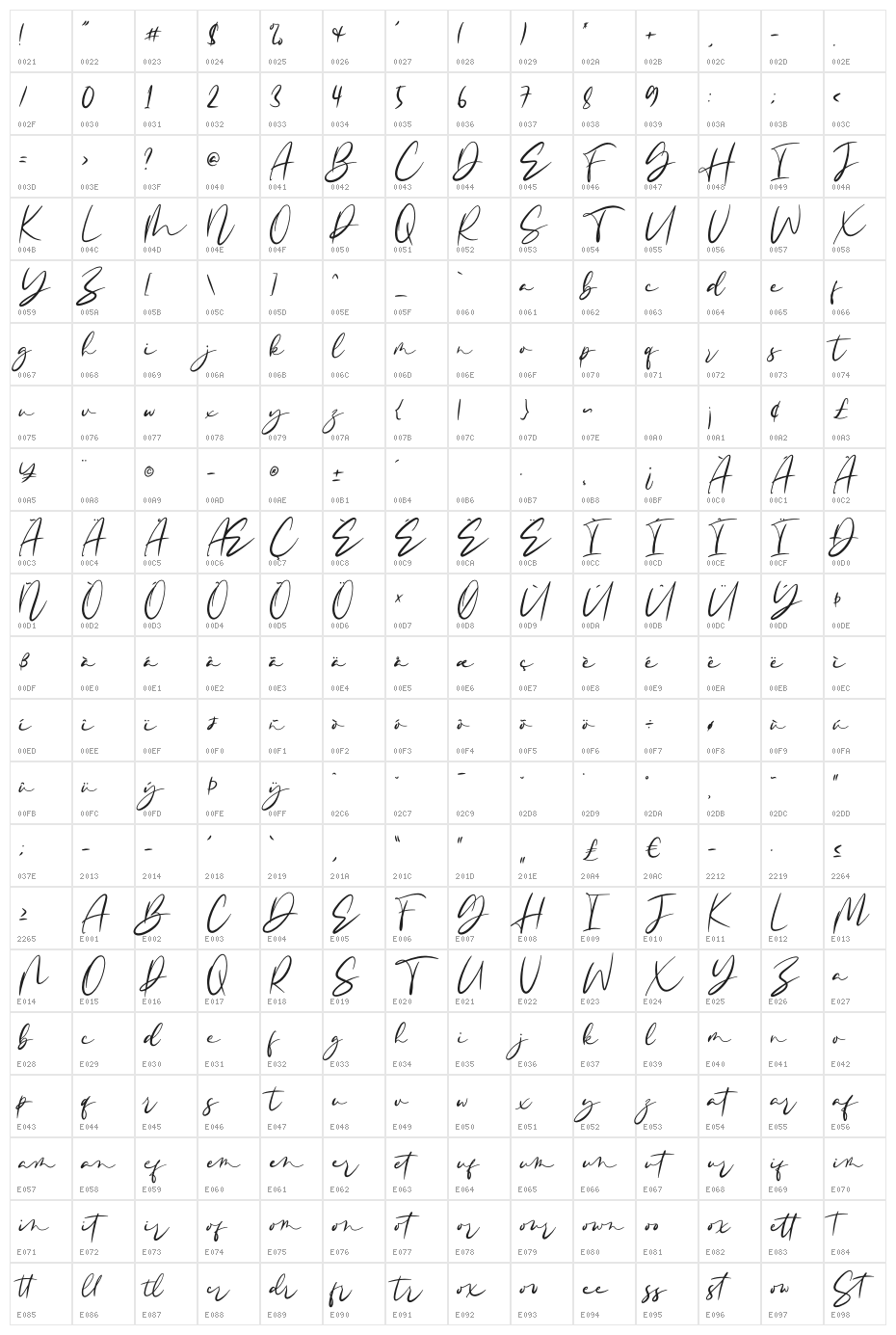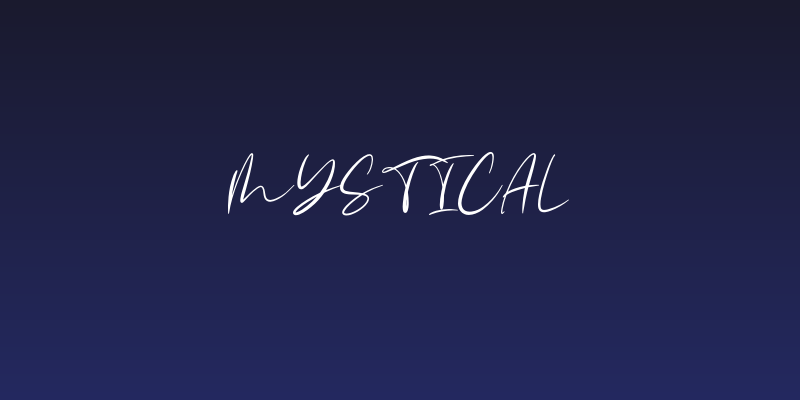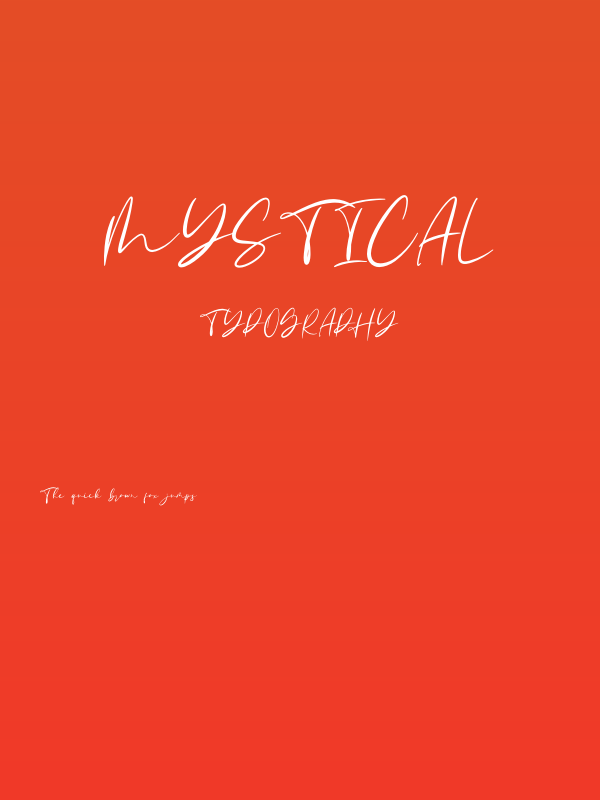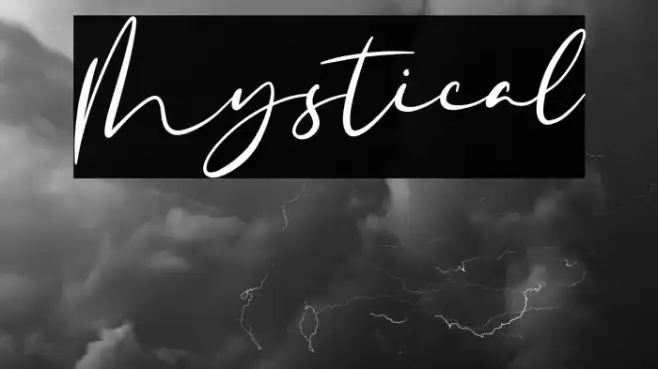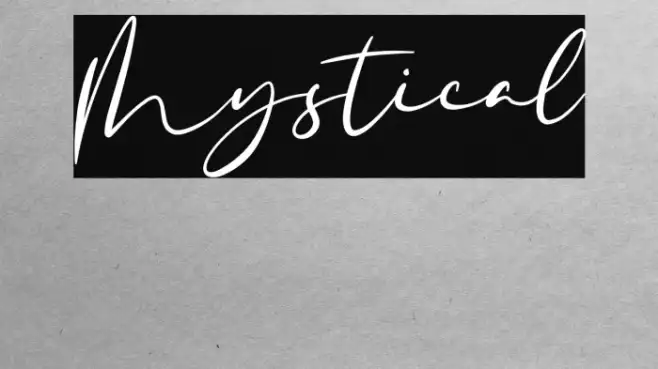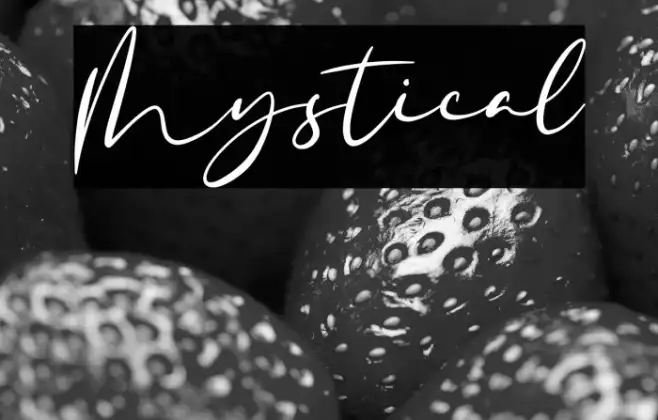
Mystical Font
Mystical Description
This font exudes a whimsical and artistic flair, characterized by its fluid, cursive strokes that mimic the elegance of handwritten script. Each letter is crafted with a sense of motion, creating a dynamic and lively appearance. The uppercase letters are bold and sweeping, while the lowercase letters maintain a consistent flow, enhancing readability. Numbers and special characters are designed with the same attention to detail, ensuring a cohesive look across all elements. The overall aesthetic is both modern and timeless, making it suitable for a variety of creative applications.
| Use Case | Logos, Invitations, Artistic Projects |
| Proposed Projects | Ideal for wedding invitations, greeting cards, branding projects, and artistic posters. |